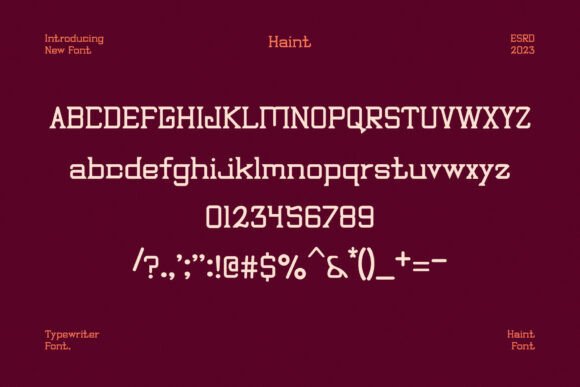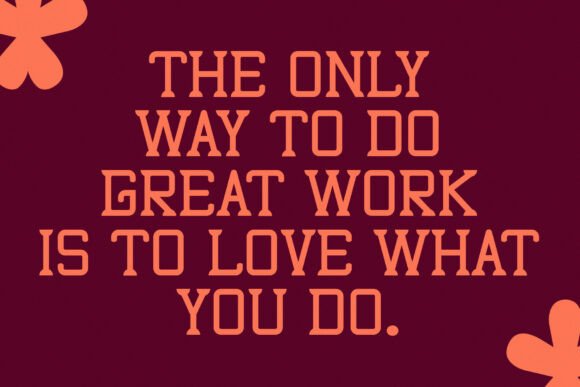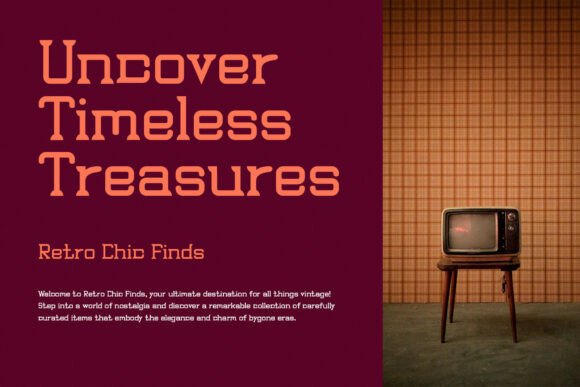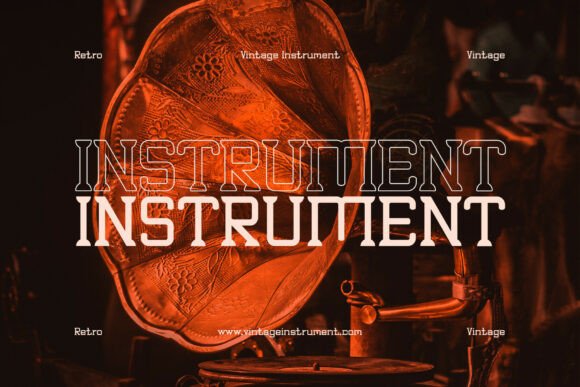
Haint Font: A Timeless Serif Font for Stunning Designs
Are you a designer or crafter looking for a font that can elevate your creative projects? Look no further than the Haint Font, a lovely and timeless serif font that is perfect for creating eye-catching logos, branding, and quotes. With its unique and beautiful touch, Haint Font is sure to make your design come alive!
The Beauty of Haint Font
Haint Font is a serif font that exudes elegance and sophistication. Its classic design makes it a versatile choice for a wide range of creative projects, from logos and branding to quotes and posters. Every letter in the Haint Font has a unique and beautiful touch, which sets it apart from other fonts. The font’s serifs are carefully crafted to add a touch of refinement and luxury to your designs.
When it comes to creating logos and branding, the right font can make all the difference. Haint Font is an excellent choice for logos and branding because of its timeless design and versatility. The font’s serif details add a touch of sophistication and elegance, making it perfect for businesses that want to convey a sense of luxury and refinement. Whether you’re creating a logo for a high-end fashion brand or a craft business, Haint Font is sure to make a lasting impression.
Eye-Catching Quotes and Posters
Haint Font is also perfect for creating eye-catching quotes and posters. The font’s classic design and serif details make it easy to read and understand, even at large sizes. Whether you’re creating a motivational poster or a quote graphic, Haint Font is sure to add a touch of elegance and sophistication to your design. The font’s unique and beautiful touch will also help your design stand out from the crowd and grab the attention of your audience.
Why Choose Haint Font?
So why choose Haint Font over other fonts? Here are just a few reasons why Haint Font is a great choice for designers and crafters:
- Timeless design: Haint Font has a classic design that will never go out of style.
- Unique and beautiful touch: Every letter in the Haint Font has a unique and beautiful touch that sets it apart from other fonts.
- Versatile: Haint Font is perfect for a wide range of creative projects, from logos and branding to quotes and posters.
- Elegant and sophisticated: The font’s serif details add a touch of elegance and sophistication to your designs.
Tips for Using Haint Font
Here are a few tips for using Haint Font in your designs:
- Use it for headlines and titles: Haint Font is perfect for headlines and titles because of its classic design and serif details.
- Pair it with a sans-serif font: Pairing Haint Font with a sans-serif font can create a beautiful contrast and add visual interest to your design.
- Experiment with different colors: Haint Font looks great in a wide range of colors, from bold and bright to soft and pastel.
| Font Name | Haint Font |
| Author | Ariya Works Studio |
In conclusion, Haint Font is a lovely and timeless serif font that is perfect for creating eye-catching logos, branding, and quotes. With its unique and beautiful touch, Haint Font is sure to make your design come alive! Whether you’re a designer or crafter, Haint Font is a great choice for any creative project. So why wait? Try Haint Font today and see the difference it can make in your designs!